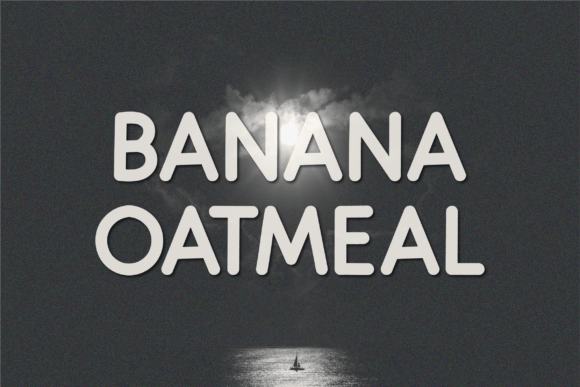
Feast your eyes on Banana Oatmeal Font, a delightful sans serif font family that emanates minimalism, charming your senses with its quirky all-caps letters. Crafted by the talented Becraft, this font is a treasure trove of creativity, inviting you to embark on a captivating design journey.
Immerse yourself in the world of Banana Oatmeal Font, where simplicity and smoothness intertwine, creating a visual symphony that captivates hearts. Its effortless elegance elevates your creations, whether they be social media posts, crafty projects, or heartfelt invitations. Unleash your imagination and let Banana Oatmeal Font take center stage, transforming your designs into captivating masterpieces.
Step into a world where minimalism meets sophistication, where every letter dances with grace and intention. Banana Oatmeal Font's clean lines and balanced proportions evoke a sense of tranquility and harmony, allowing your words to shine with newfound radiance. Experience the joy of crafting, t-shirts, decals, cards, and invitations that exude a timeless charm, leaving an indelible mark on the hearts of your audience.
With Banana Oatmeal Font as your creative companion, embark on a journey of self-expression, where your designs come alive with a captivating allure. Let your creativity flourish as you witness the transformation of ordinary words into captivating narratives, igniting imaginations and leaving a lasting impression. Embrace the beauty of simplicity and embark on a creative odyssey with Banana Oatmeal Font, your trusted guide to design excellence.